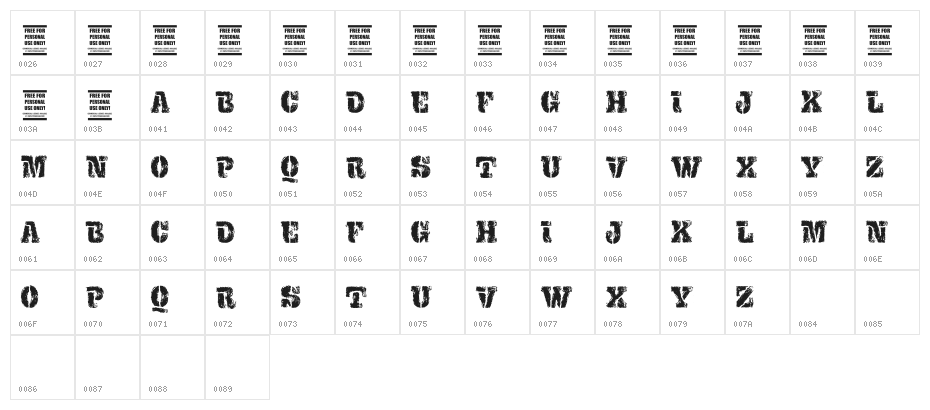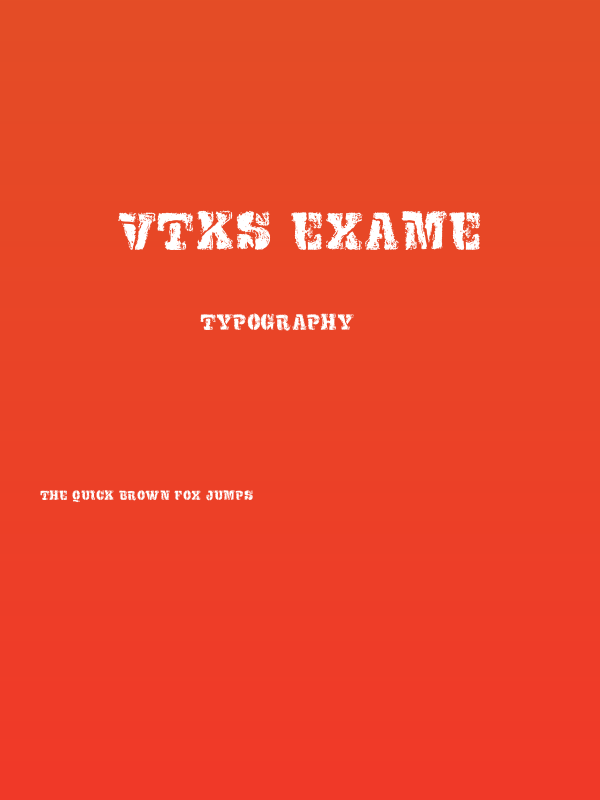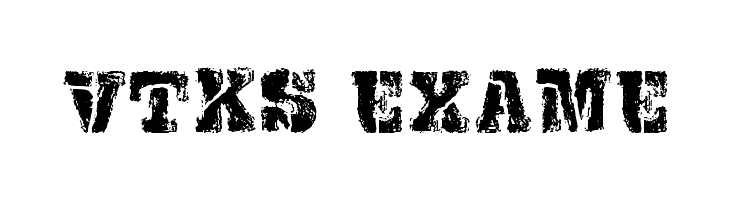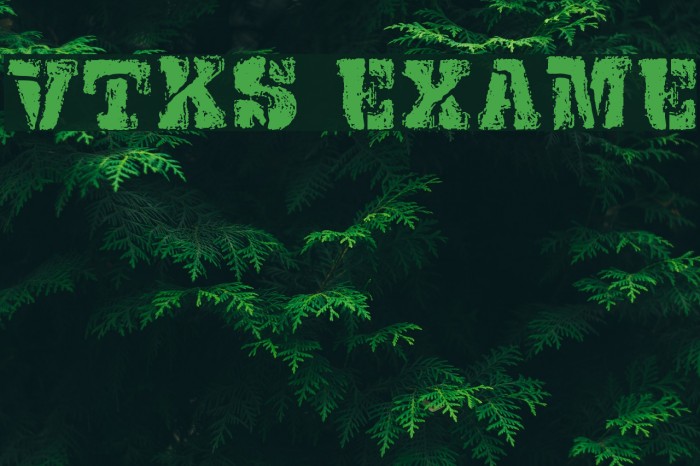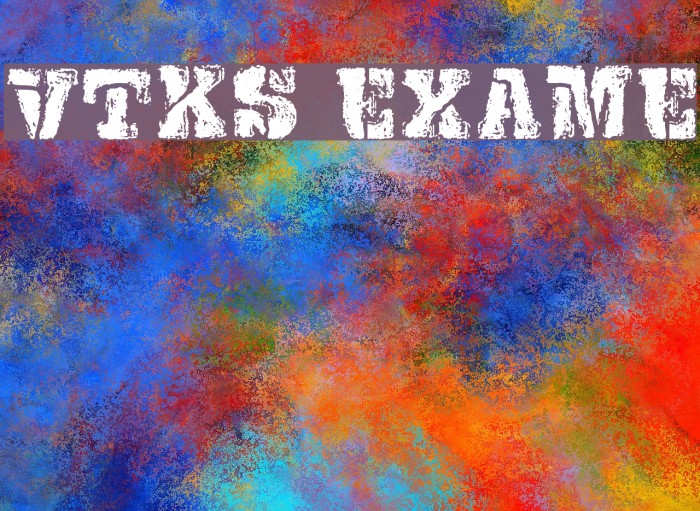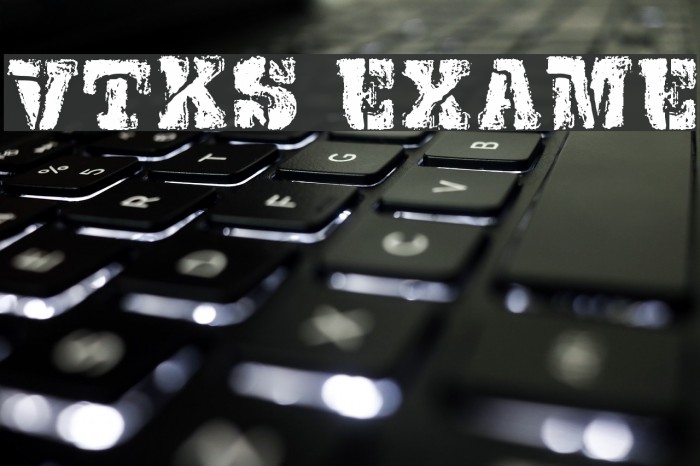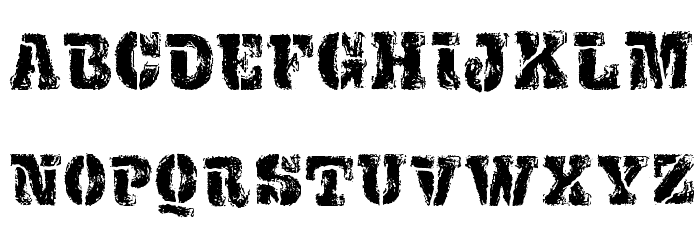
VTKS EXAME Font
VTKS EXAME Description
This font features a distressed, grunge style with a bold and rugged appearance. Each character appears as if it has been weathered or eroded, giving it a unique and edgy look. The uppercase letters are prominent, with rough edges and a textured surface that adds depth and character. This font is ideal for projects that require a strong, impactful visual presence. Its distressed style makes it suitable for designs that aim to convey a sense of rawness or authenticity. The font's boldness ensures that it stands out, making it perfect for headlines or titles that need to capture attention.
| Overall Style | Grunge, Edgy |
| Proposed Projects | Ideal for album covers, posters, logos, and any design needing a bold, edgy look. |